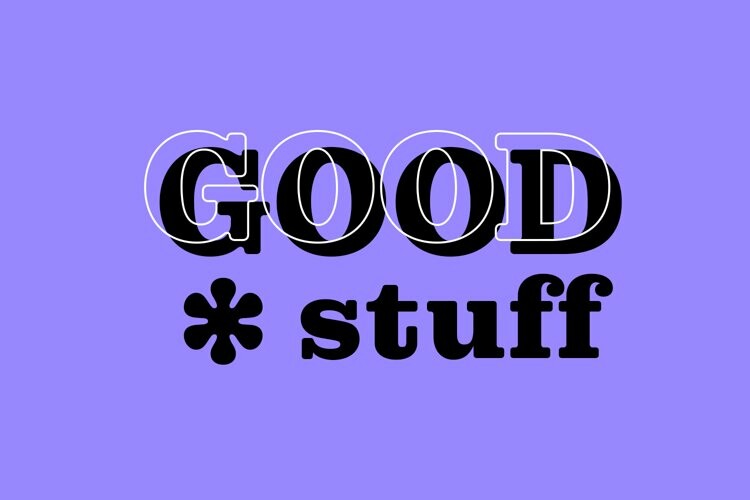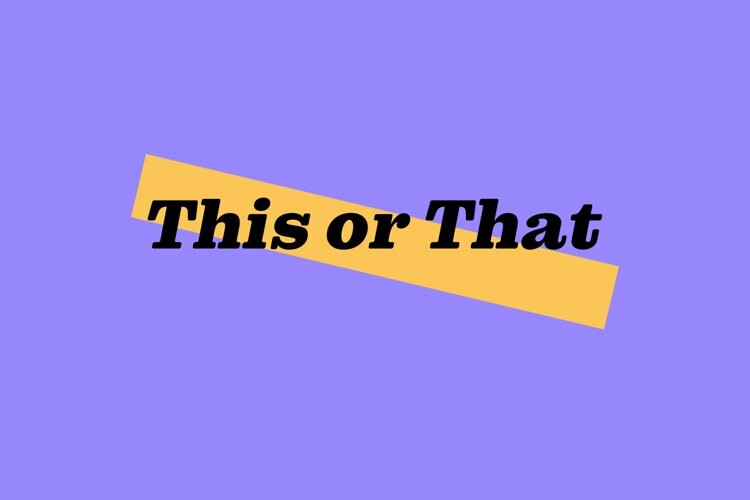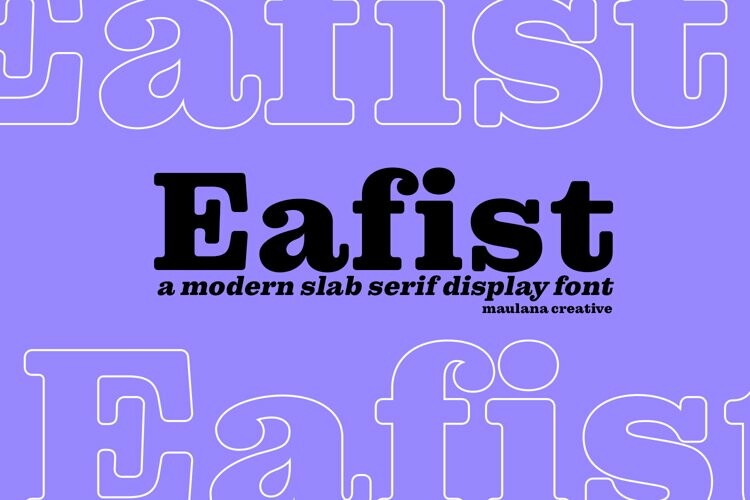
Eafist Font
Eafist FontEafist is a retro slab serif font. With bold stroke, fun character with a bit of ligatures and alternates. To give you an extra creative work. Eafist font support multilingual more than 100+ language. This font is good for logo design, Social media, Movie Titles, Books Titles, a short text even a long text letter and good for your secondary text font with sans or serif. Make a stunning work with Eafist font.